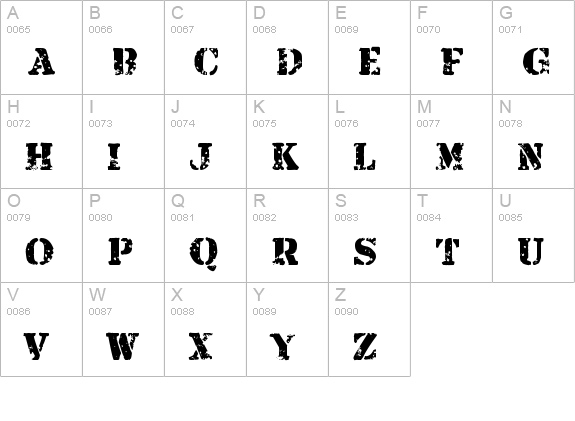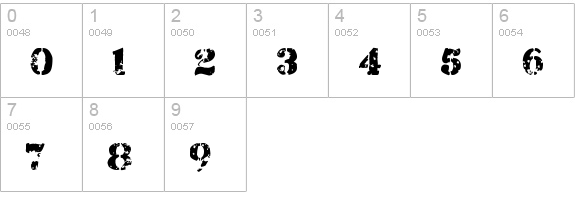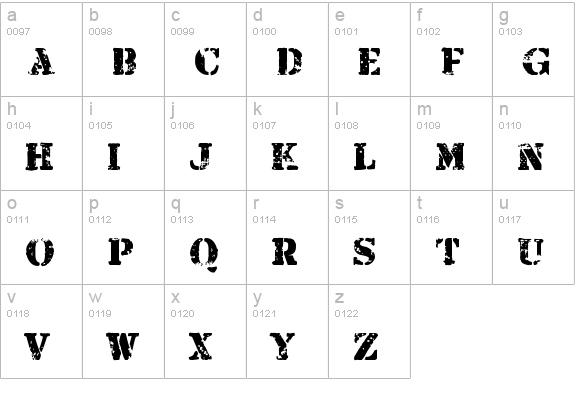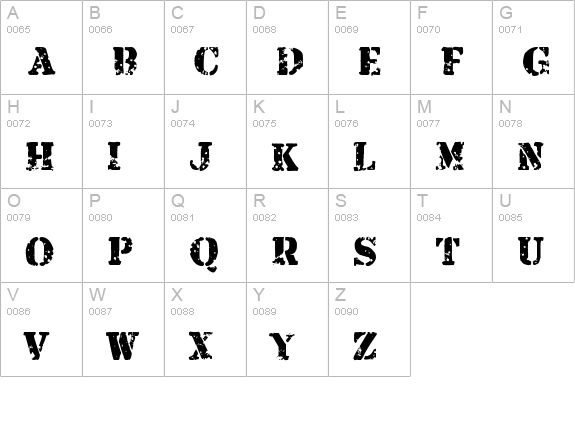
Armalite Rifle Font Details
The Armalite Rifle font is a bold and powerful typeface that exudes strength and precision. Inspired by the sleek design of firearms, this font features sharp angles and a modern aesthetic that commands attention. Perfect for military-themed projects, action-packed designs, or anything that requires a touch of ruggedness. Best of all, the Armalite Rifle font is completely free to download at FontsMarket.com. Whether you're a designer looking to add a unique edge to your work or just someone who appreciates a strong and impactful font, Armalite Rifle is a fantastic choice. Download it today and unleash its commanding presence in your projects.